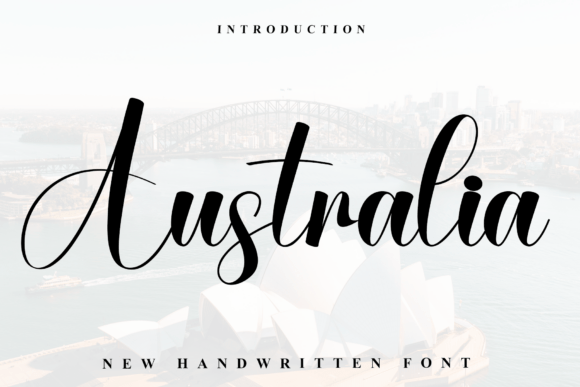
The Elegance of Australia Font: A Designer’s Delight
I’ll never forget the time I was working on a wedding invitation project, and my client asked for a font that exuded elegance and sophistication. I scoured the internet, tried countless fonts, but nothing seemed quite right. That was until I stumbled upon Australia Font. Its smooth, stylish lines and refined ligatures instantly caught my eye, and I knew I had found the perfect fit. In this article, I’ll share my experience with Australia Font, its features, and how to make the most of it in your designs.
A Closer Look at Australia Font
Australia Font is a modern handwritten script font that shines with sophistication and charm. Its elegant curves, flowing strokes, and refined ligatures make it perfect for wedding invitations, branding, quotes, greeting cards, and feminine logo designs. The font’s clean structure ensures professional readability, while its smooth lines give it a timeless, romantic feel.
- ✅ Elegant and sophisticated design
- ✅ Smooth, stylish lines and refined ligatures
- ✅ Perfect for wedding invitations, branding, and feminine designs
- ✅ Clean structure for professional readability
- ✅ PUA-encoded for effortless access to glyphs, swashes, and alternate characters
- ⚠️ May not be suitable for bold or edgy designs
- ⚠️ Limited use of uppercase letters, as they can appear too bold
The Story Behind Australia Font
The story behind Australia Font is one of inspiration and passion. The font’s creator, a talented designer, was inspired by the country’s stunning landscapes and elegant typography. With a focus on creating a font that exudes sophistication and charm, the designer poured their heart and soul into crafting Australia Font.
Q: Can I use Australia Font for my branding and logo design?
A: Absolutely! Australia Font is perfect for feminine branding and logo designs. Its elegant curves and refined ligatures make it a great choice for businesses looking to convey sophistication and charm.
Q: Is Australia Font suitable for body text?
A: While Australia Font is beautiful, it’s best suited for headlines, titles, and short paragraphs. Its elegant design may not be ideal for long-form body text.